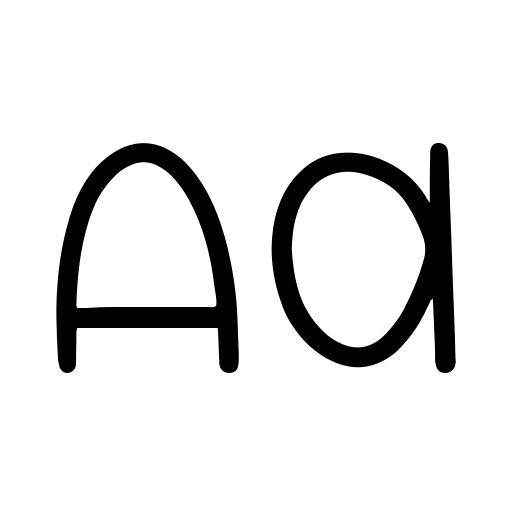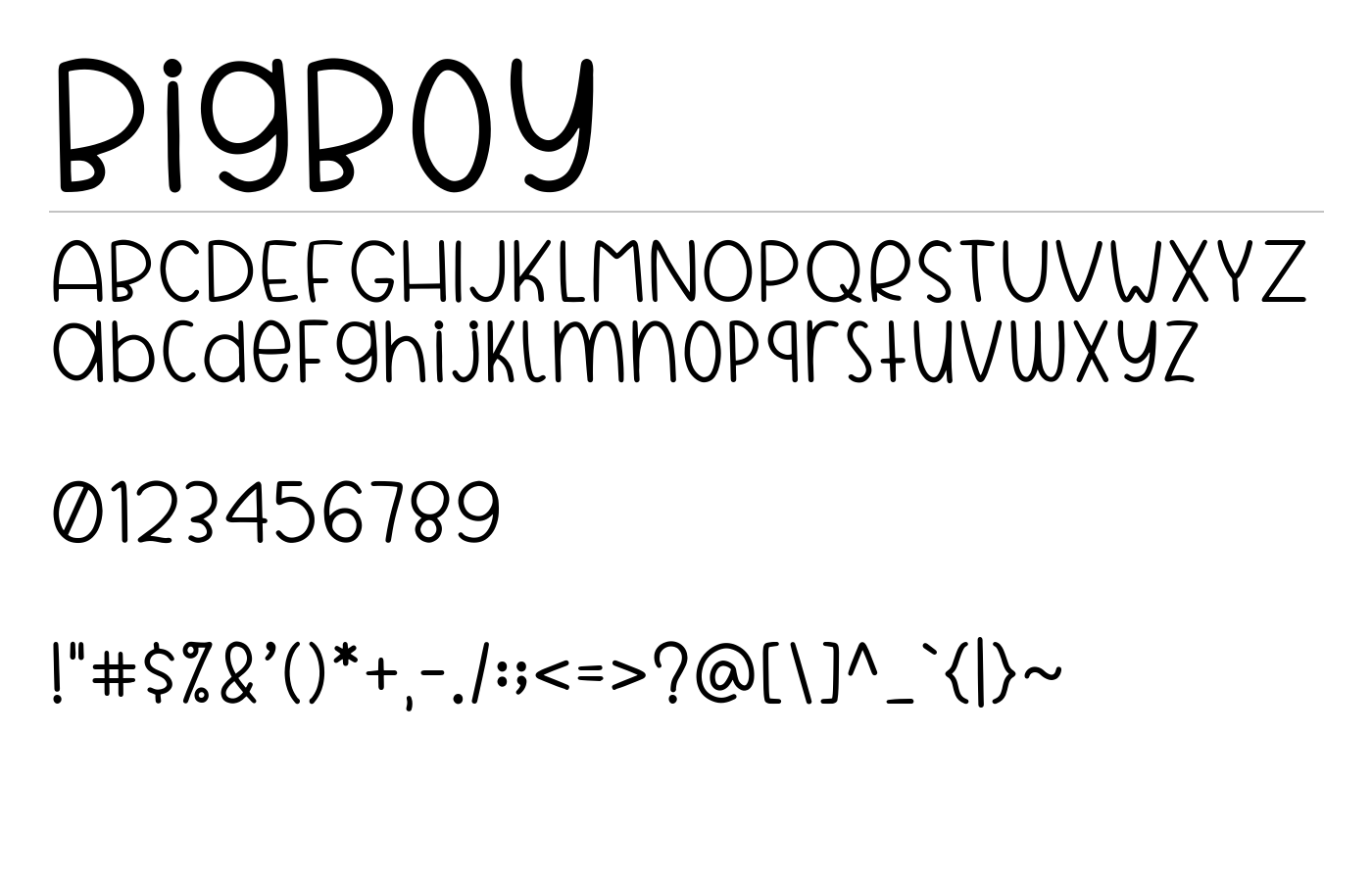
BigBoy is a playful and casual handwritten sans serif font featuring tall, narrow letters with irregular curves and a light weight. Its distinctive, friendly style with simple, rounded strokes makes it perfect for informal, fun designs such as children’s books, playful branding, or creative social media graphics. This font adds a warm, approachable vibe wherever a lighthearted and personal touch is desired.
BigBoy Font
About BigBoy Font
| Font family | BigBoy Font |
| Designer | Emylia |